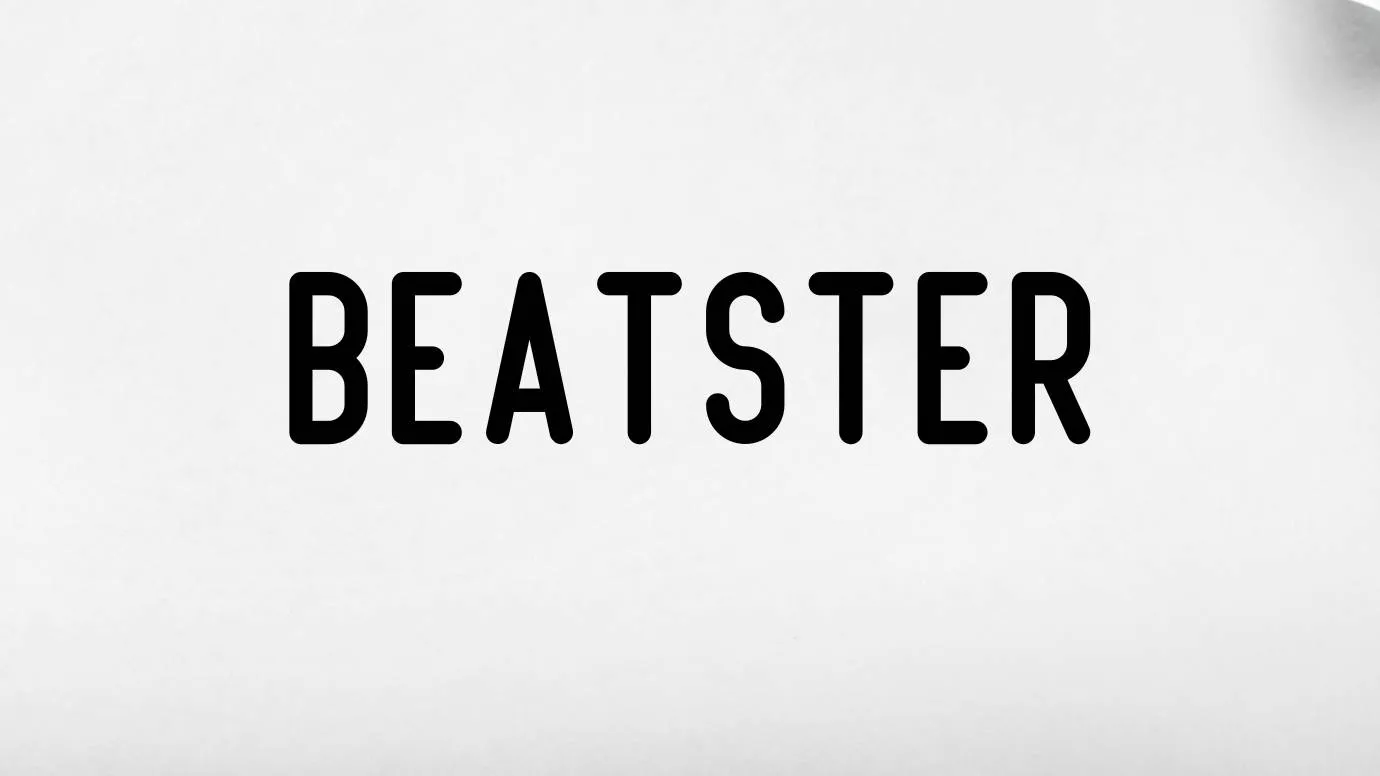
Beatster Font Family is a vintage look display typeface that has elegant features. MuSan is the main and original designer of this typography. This texture falls in the category of the display family of fonts.
This modern-look font family is good for pairing with royal knights font that comes in the display family. This classic typography has a bunch of characteristics that increase the worth of this stylish font family.
Beatster Font